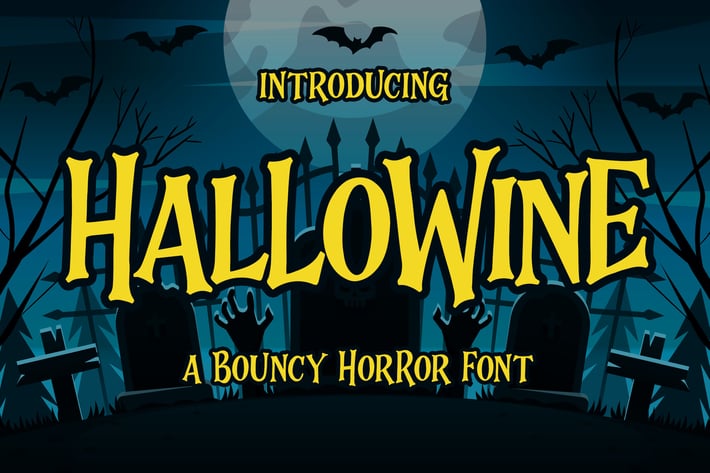
Hallowine - a Bouncy Horor Font
Introducing of our new product the name is Hallowine a Bouncy Horor Font. Hallowine inspired by horror style this font is a fun theme very good for halloween, book cover, poster, apparel, clothing, logotype and etc
MULTILINGUAL ACCENT :
ØÆøæ¢ÐŒœÁĂÂÀÄĄÅÃǼĆČÇĈĊĎÉĔĚÊËĖÈĘĞĜĢĠĤÍĬÎÏİÌĮĨĴĶĹĽĻĿŃŇŅÑÓŎÔÖÒŐǾÕŔŘŖŚŠŞŜȘŤŢÚŬÛÜÙŰŲŮŨẂŴẄẀÝŶŸỲŹŽŻáăâäàąåãǽćčçĉċďéĕěêëėèęğĝģġĥíîïìįĩĵķĺľļŀńʼnňņñóŏôöòőǿõŕřŗśšşŝșťţŭûüűùųůũẃŵẅẁýŷÿỳźžż